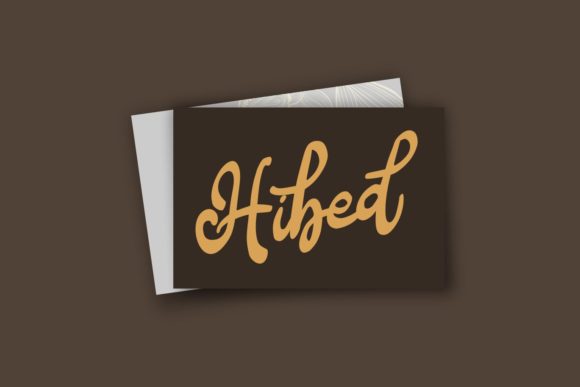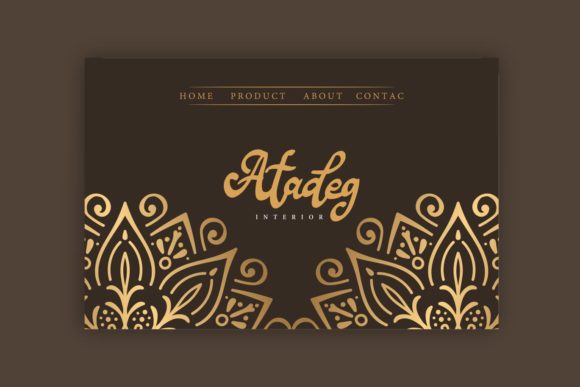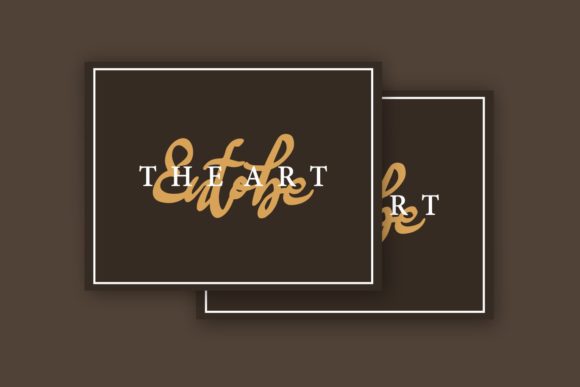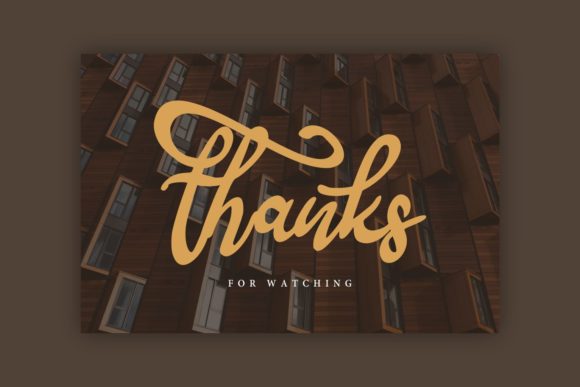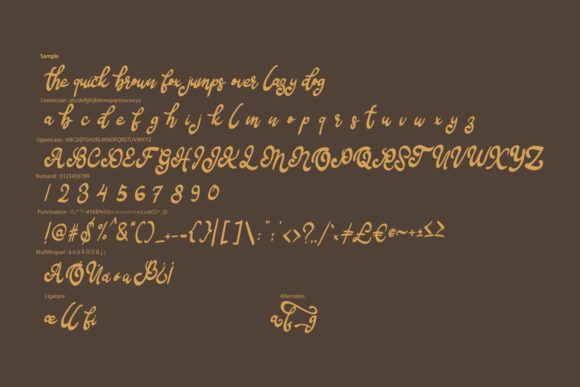
Bafera Font
About Bafera Font
Bafera combines gorgeous swashes and a timeless approach to design into one truly iconic script. Fall in love with its many alternates and ligatures!